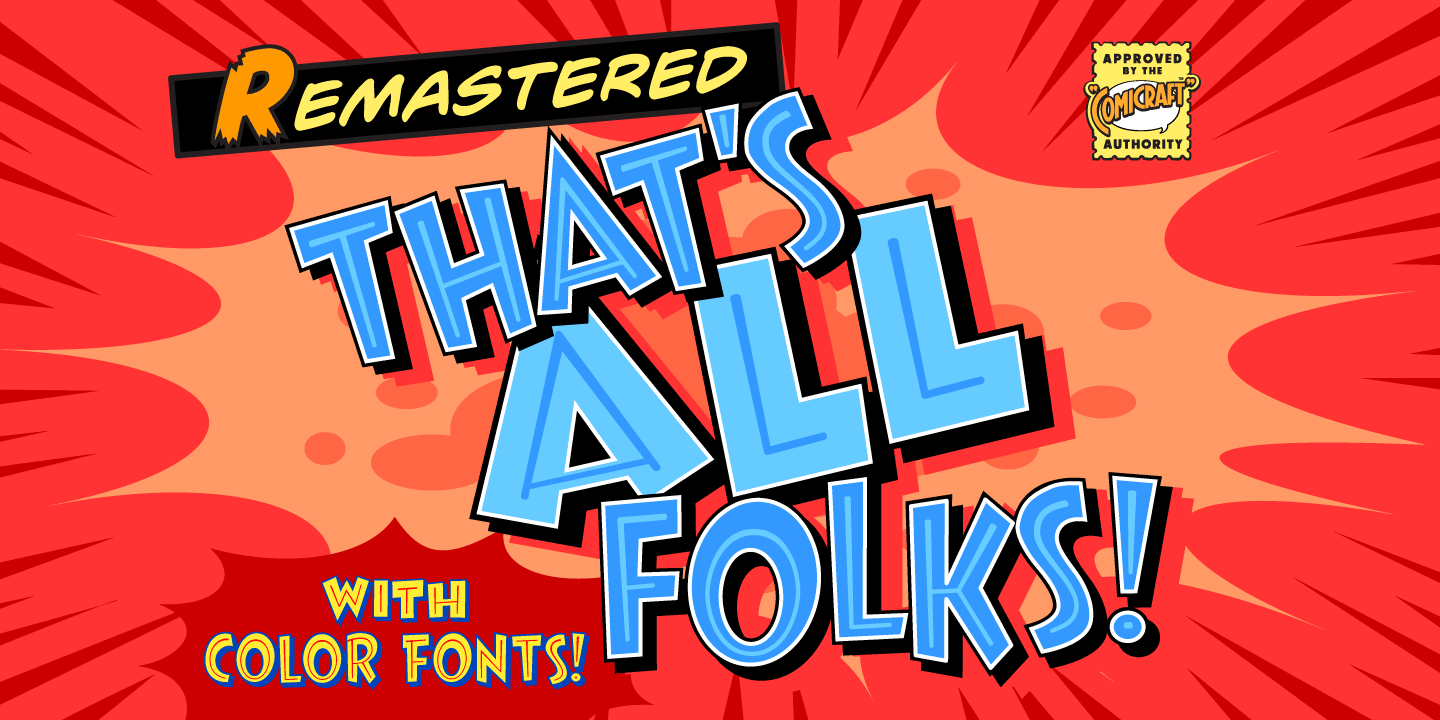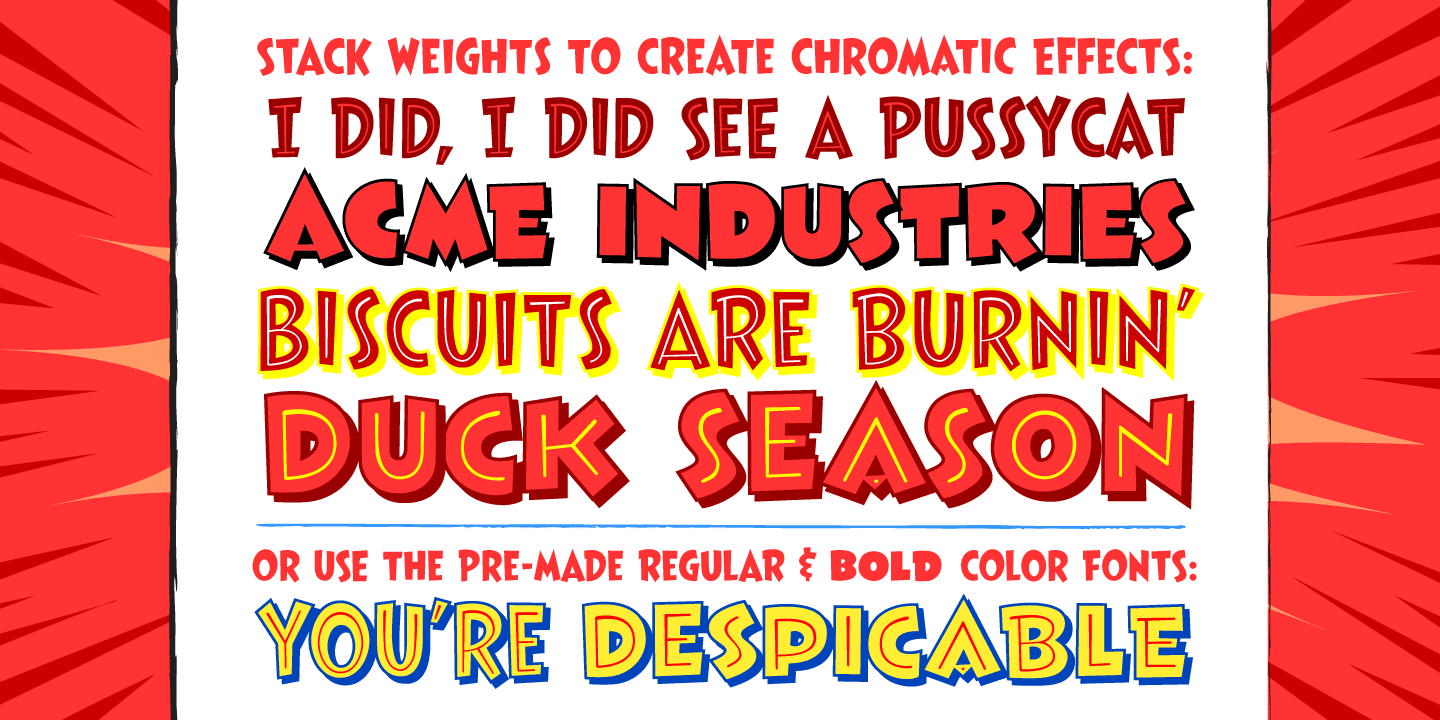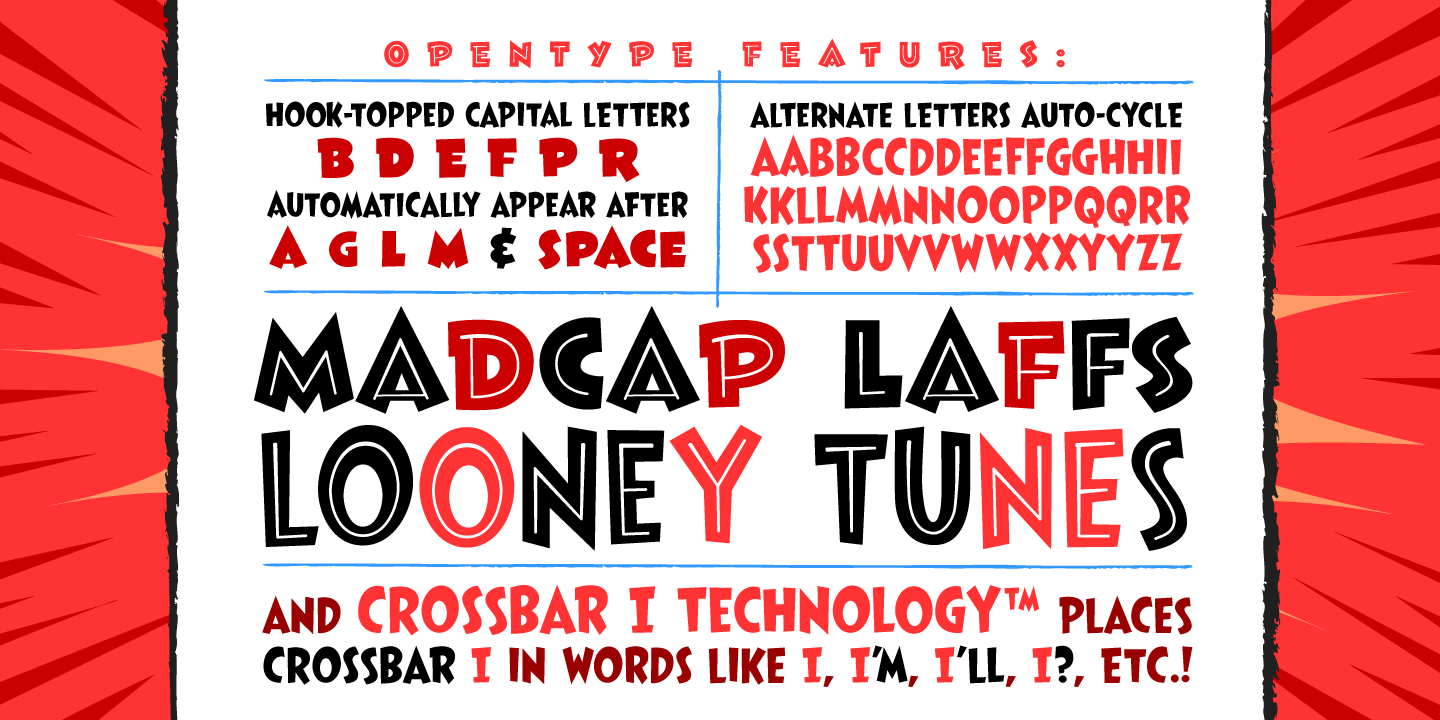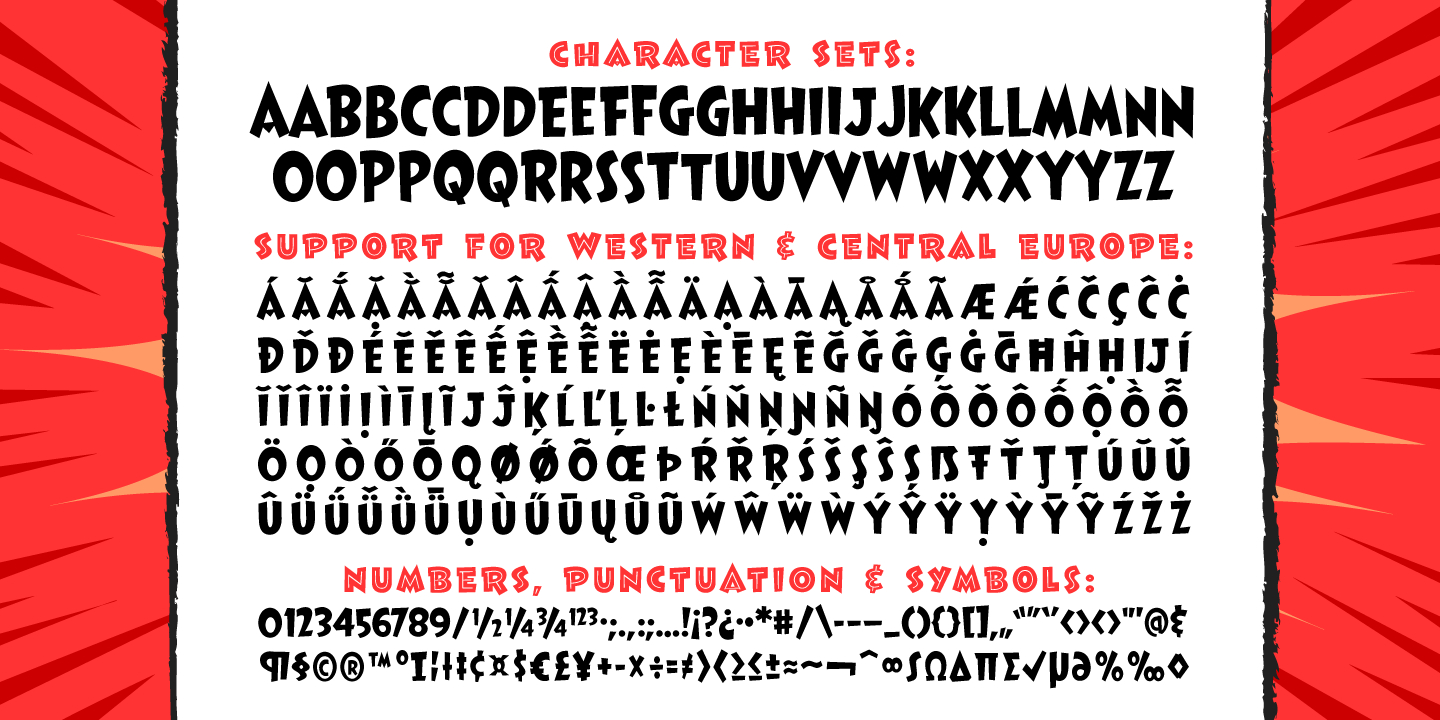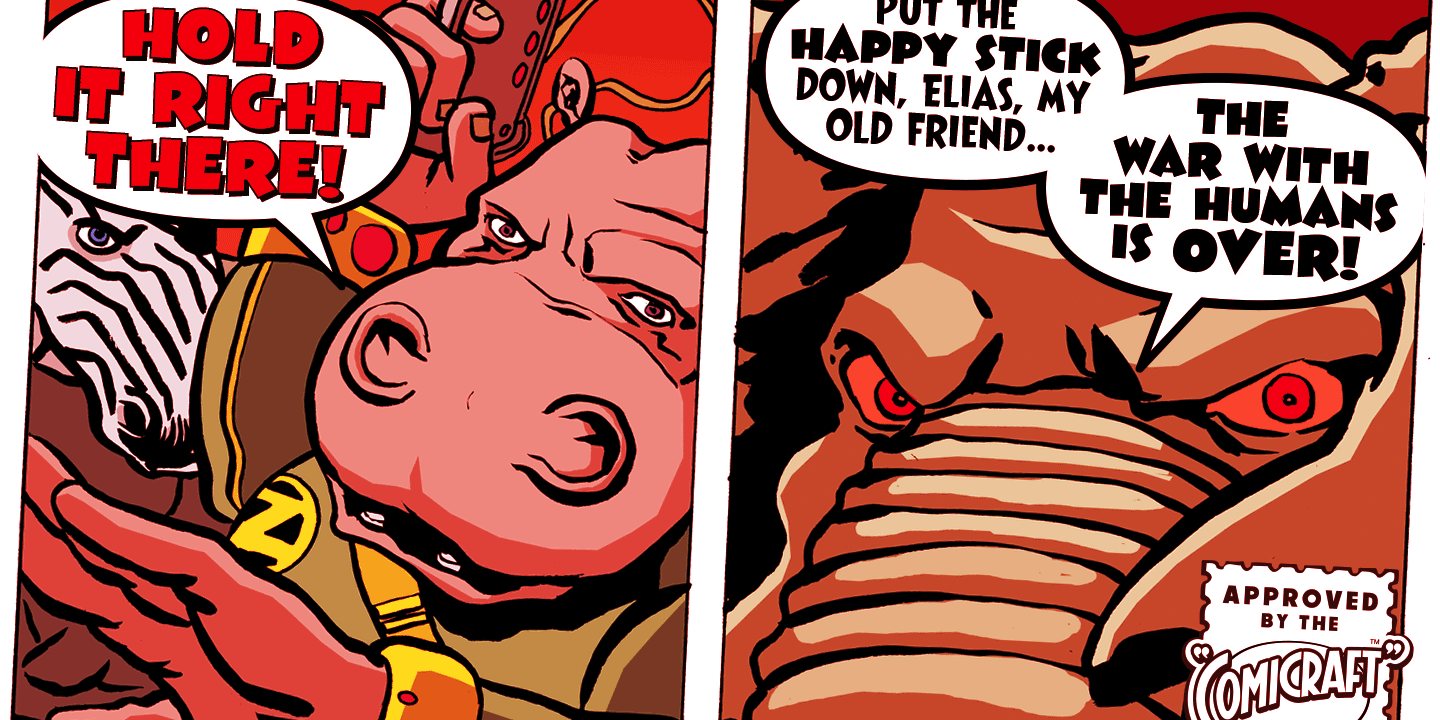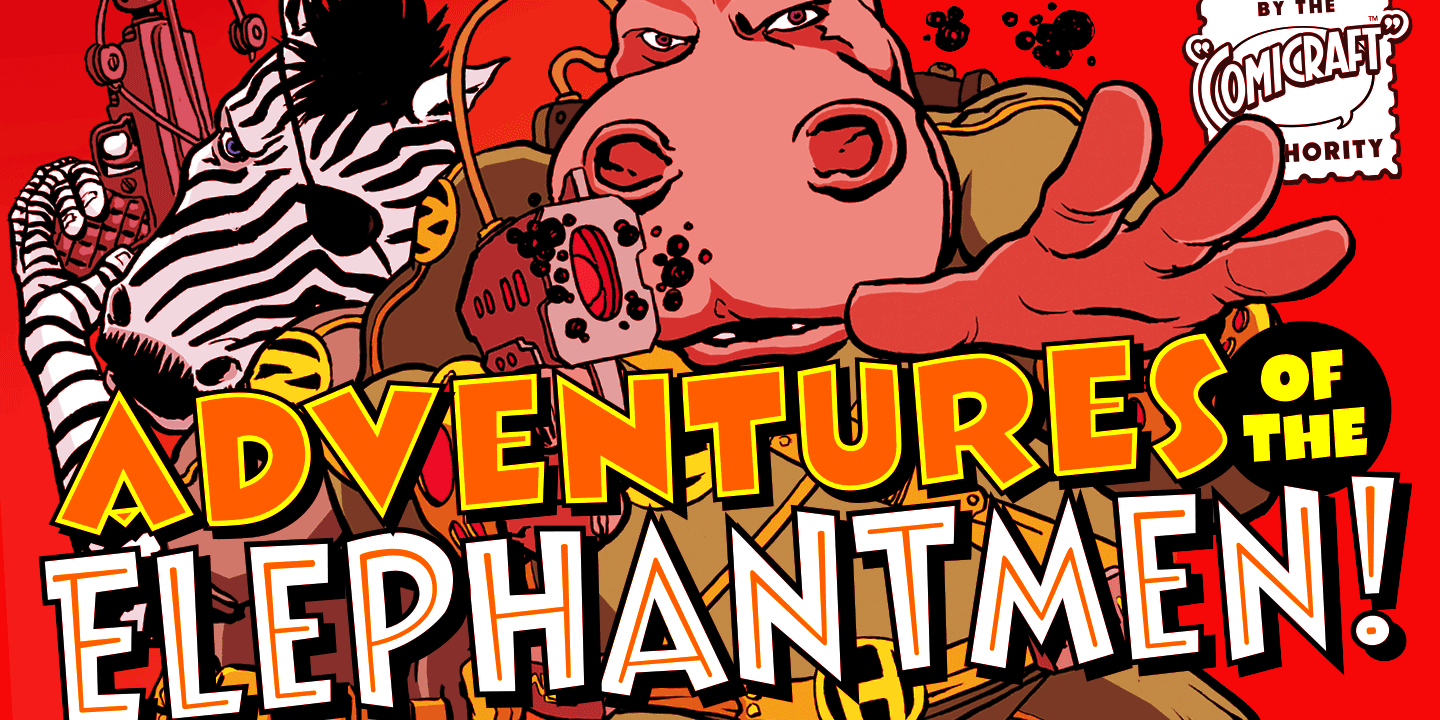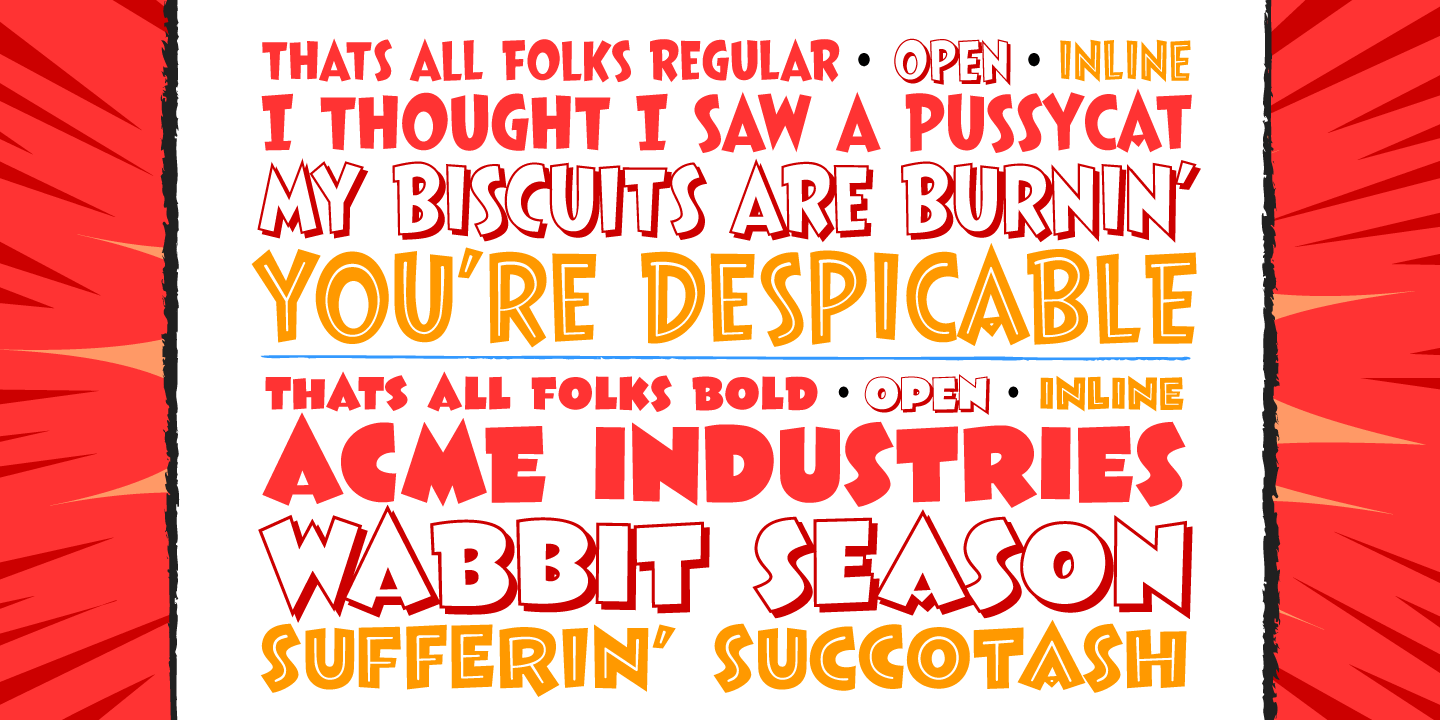
Thats All Folks
Font Family by Comicraft Fonts
Run amuck and head on down to Toon Town with us to enjoy some Madcap Laffs with our latest Frolicking Font, 'THAT'S ALL FOLKS'. It's good, clean family fun for all your favorite comic cuts and looney'toons! What's more, it's (sing along) S-O-E, A-S-Y, T-O-U-S-E!